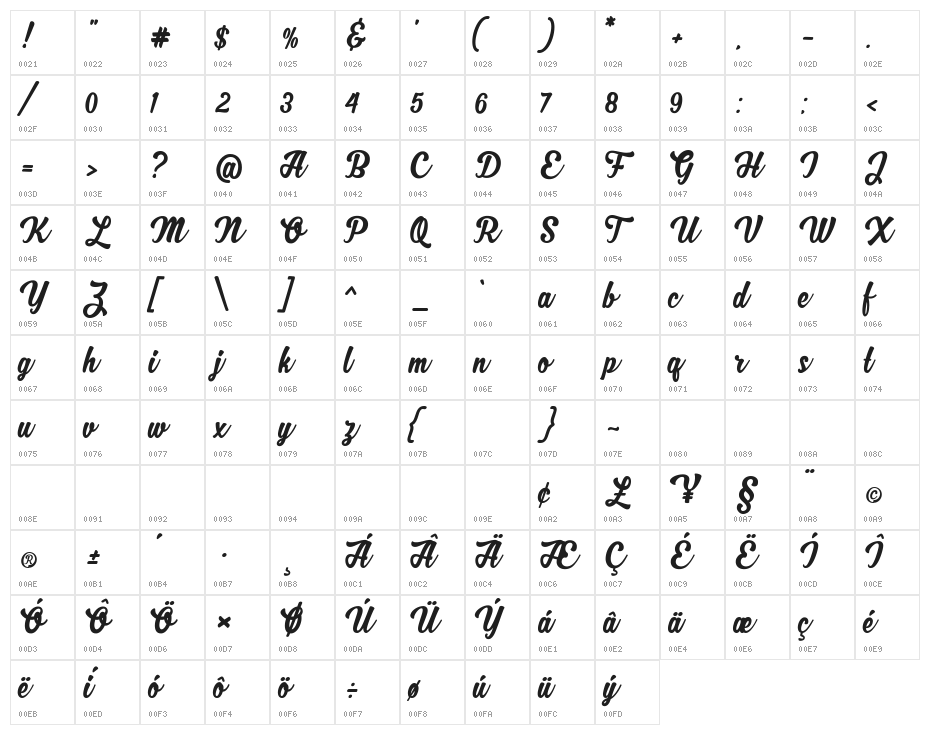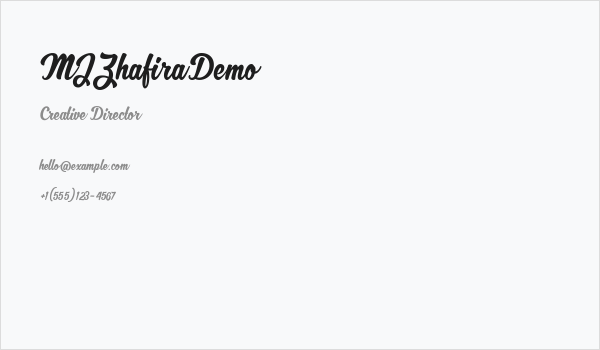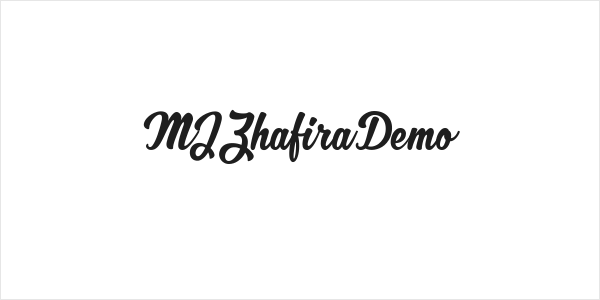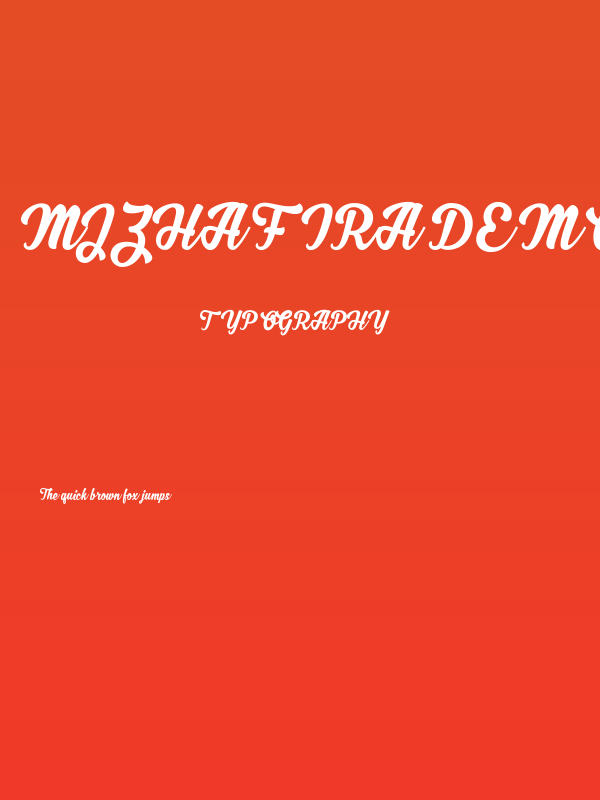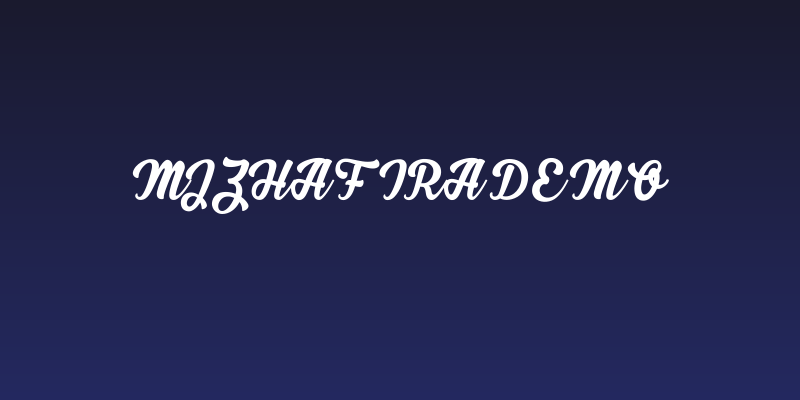
MJZhafiraDemo Font
MJZhafiraDemo Description
This font features a bold and flowing script style, characterized by its elegant and cursive letterforms. The uppercase letters are ornate and slightly slanted, giving a sense of movement and fluidity. The lowercase letters maintain a consistent style with smooth curves and connected strokes, enhancing the overall cohesiveness of the design. The numbers are crafted with the same attention to detail, ensuring readability while maintaining the decorative aesthetic. Special characters are included, each designed to complement the script style, making this font versatile for various creative applications.
| Overall Style | Elegant, Decorative |
| Proposed Projects | Ideal for wedding invitations, branding, logos, and greeting cards. |